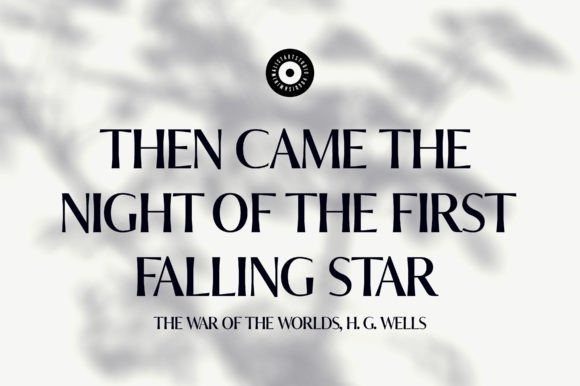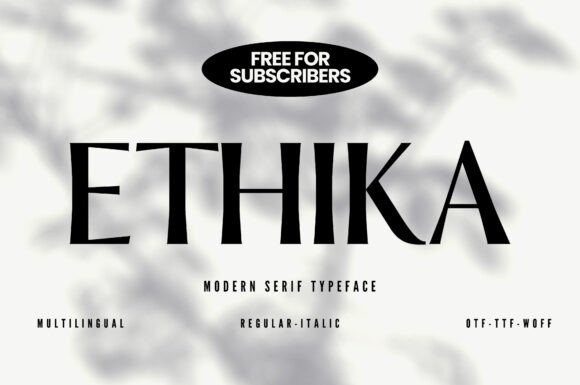
Ethika Font
Ethika Font, the epitome of minimalist elegance and chic sophistication in the world of typography. This serif typeface is crafted with a keen eye for balance, form, and function, resulting in a strikingly beautiful font that stands out from the crowd.
Ethika is the perfect choice for designers, creatives, and anyone seeking a font that exudes a sense of understated refinement. With its clean lines, bold serifs, and exquisite proportions, Ethika is a timeless classic that seamlessly blends tradition with modernity.
Whether you’re designing a logo, creating a website, or laying out a print project, Ethika is a versatile typeface that will elevate your work to new heights. Its sleek, modern style makes it ideal for a wide range of applications, from fashion and beauty to luxury and lifestyle brands.
One of the standout features of Ethika is its remarkable legibility, making it perfect for use in body text, headings, and captions alike. The font’s clear, sharp lines make it easy to read even at smaller sizes, while its elegant serifs add a touch of sophistication and refinement.
Overall, Ethika is a must-have typeface for anyone who values elegance, simplicity, and versatility in their work. Its minimalist design, paired with its impeccable attention to detail, makes it the perfect font for any project that demands a touch of sophistication and style.